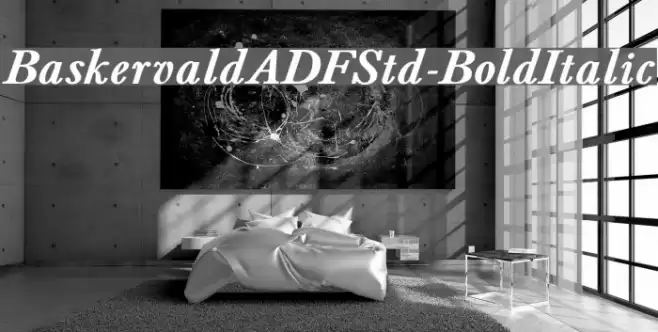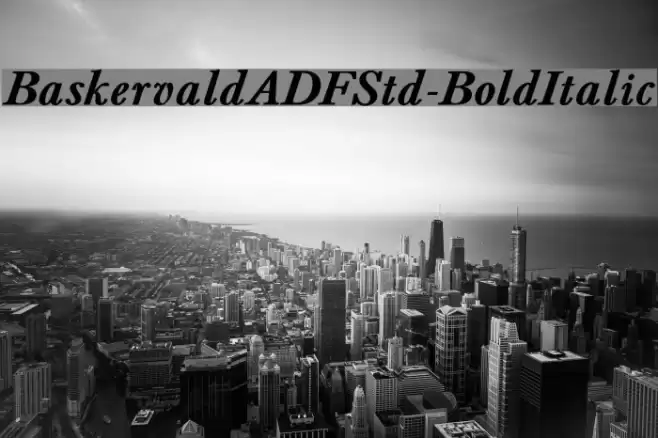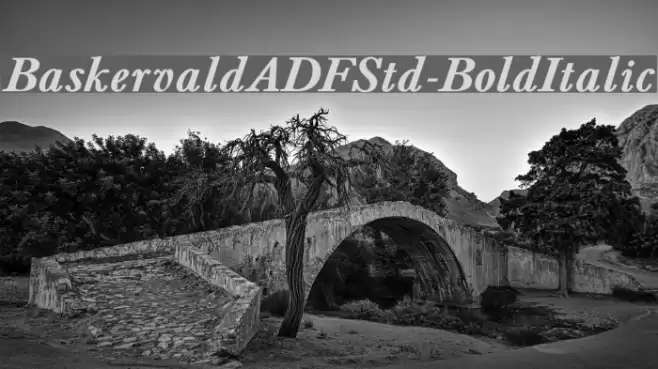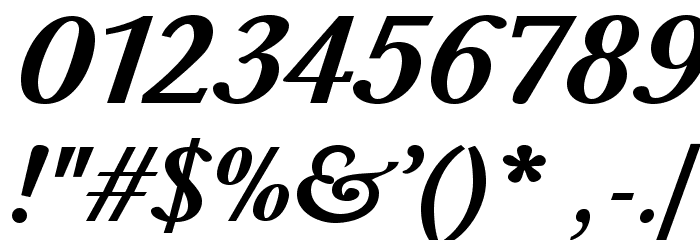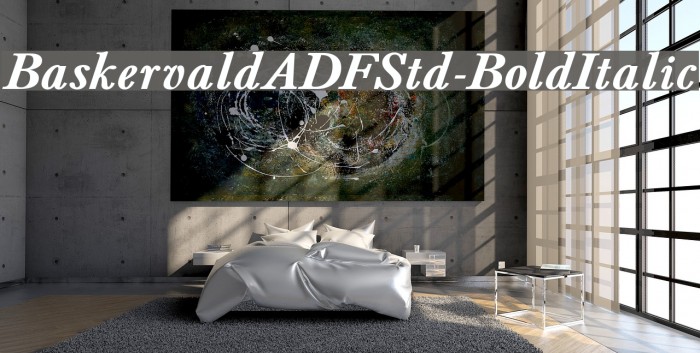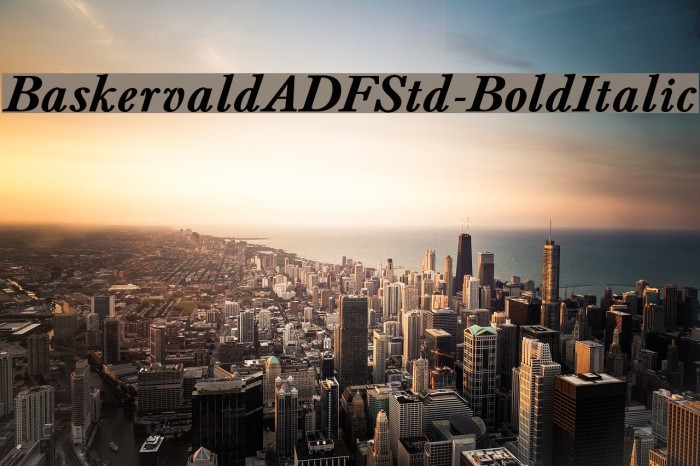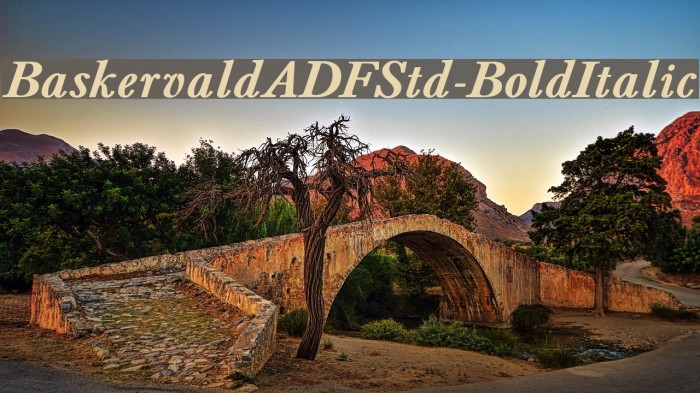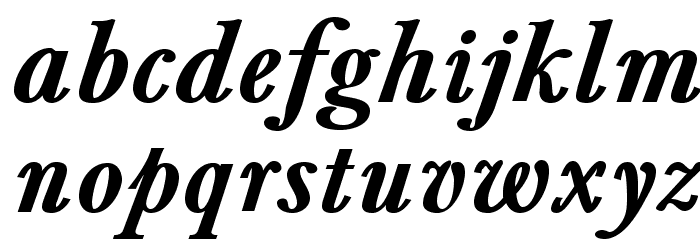
BaskervaldADFStd-BoldItalic Font
BaskervaldADFStd-BoldItalic Description
This font exudes a classic elegance with its bold and italicized serif style. The characters are well-defined with a slight slant, adding a dynamic and sophisticated touch. The uppercase letters are stately and commanding, while the lowercase letters maintain a graceful flow. The numerals are clear and robust, ensuring readability. Special characters are designed with the same attention to detail, providing a cohesive look across all glyphs. The overall design is reminiscent of traditional typography, making it suitable for projects that require a touch of refinement and authority.
A bold, italic serif font with classic elegance and dynamic style from Uncategorized fonts.
- Proposed Projects: Ideal for book covers, formal invitations, branding materials, and editorial design.
- Overall Style: Classic